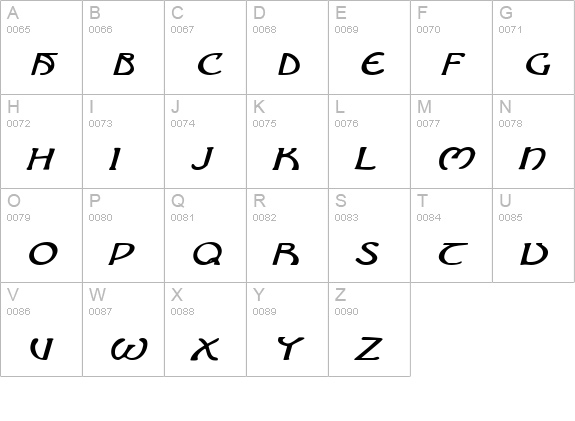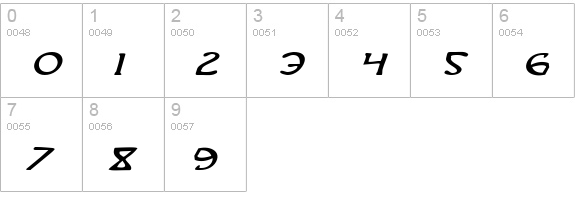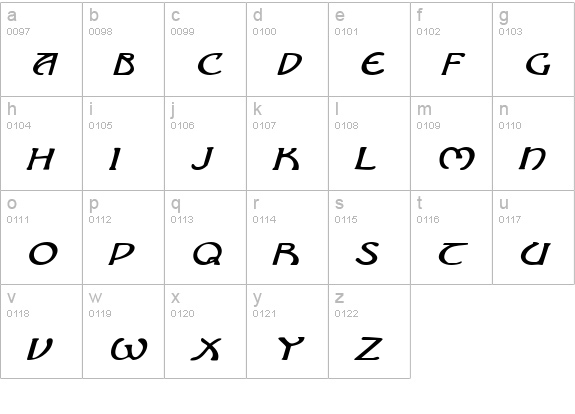
Brin Athyn Expanded Italic is a distinctive, extended-width, italic variant in the Brin typeface family \xE2\x80\x94 well suited to design and typography projects.
Brin Athyn Expanded Italic font is a striking and versatile typeface that exudes elegance and sophistication. Its elongated letterforms and slanted design create a sense of movement and dynamism, making it perfect for adding a touch of flair to any design project. This font is ideal for headings, titles, and other display purposes where you want to make a statement. What's even better is that Brin Athyn Expanded Italic font is available for free download at FontsMarket.com. This means you can easily access this beautiful typeface and use it in your projects without any cost. Whether you're a designer, student, or hobbyist, this font is a great addition to your collection. Don't miss out on the opportunity to enhance your designs with the elegance and style of Brin Athyn Expanded Italic font. Download it now and see the difference it can make in your projects!